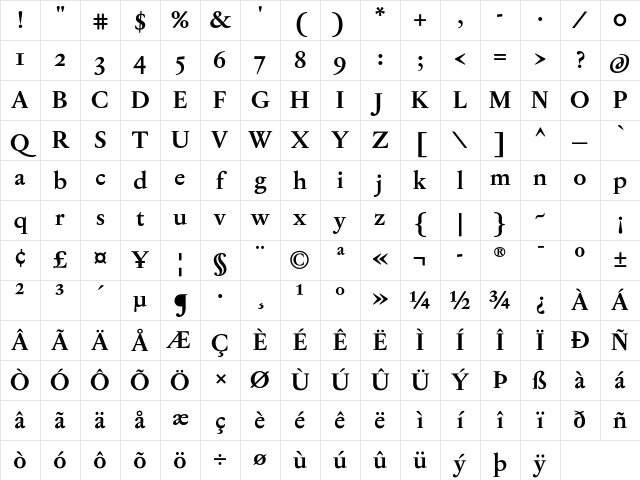
Complete Jannon T Moderne OT Bold glyph index. Displaying only characters natively supported by Jannon T Moderne OT Bold font.
Jannon T Moderne OT is a composed and adaptable typeface that performs quietly and consistently across a wide range of design contexts. Its bold stroke weight gives it real presence on the page.